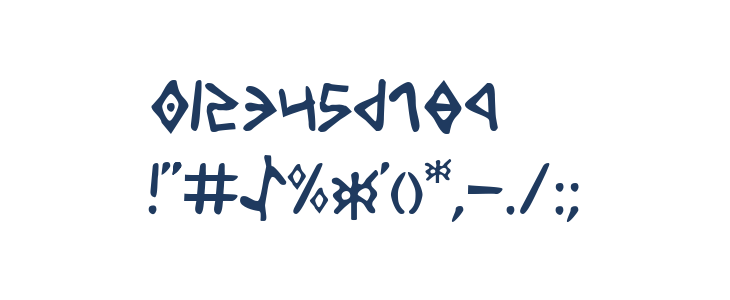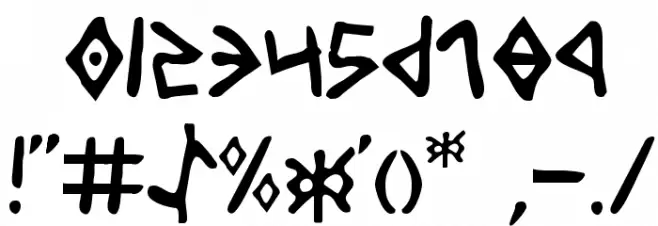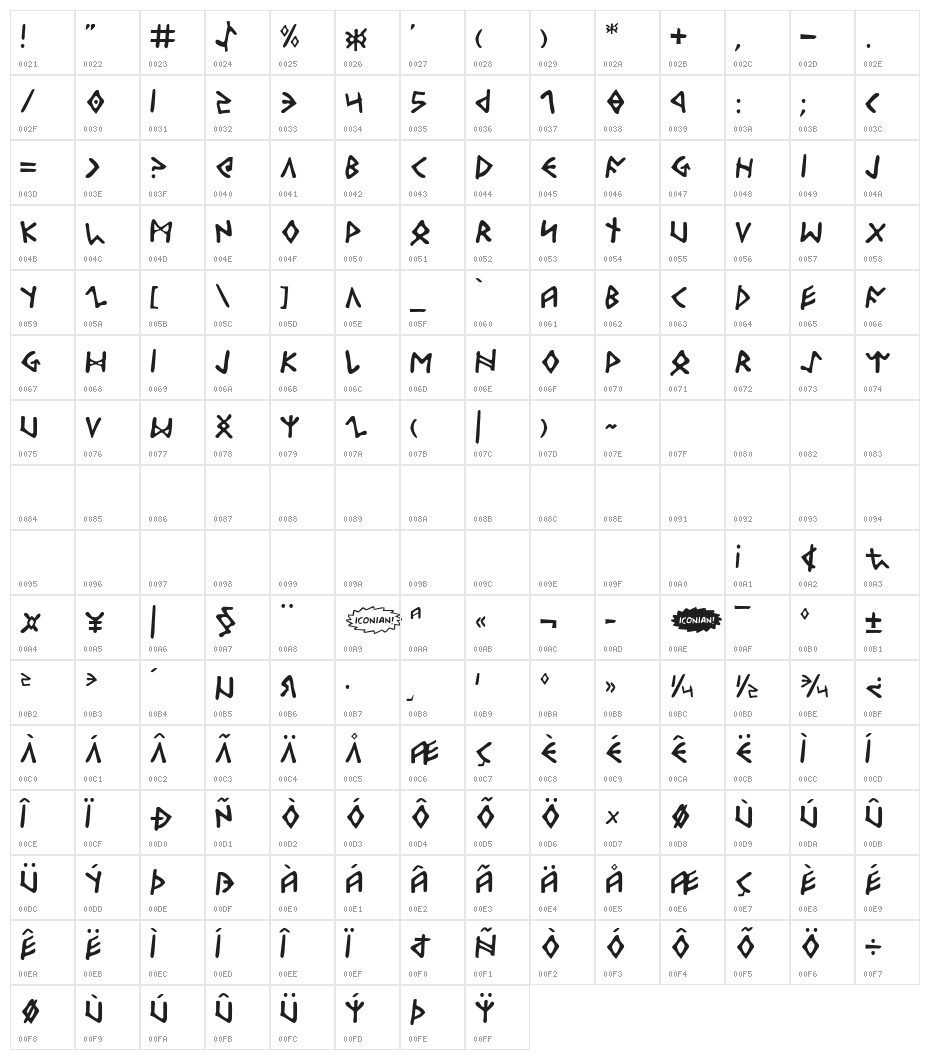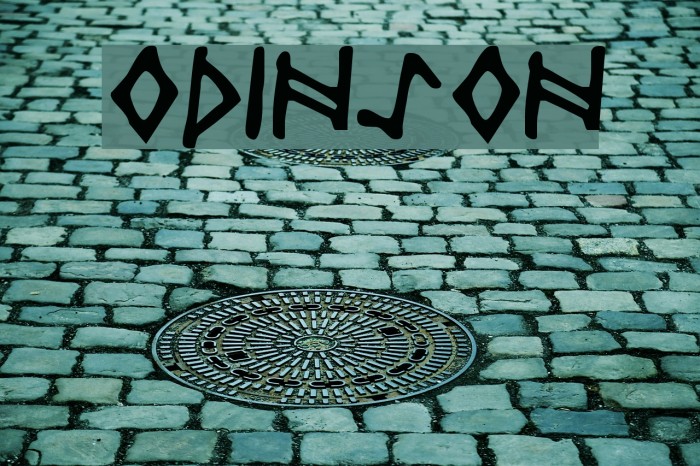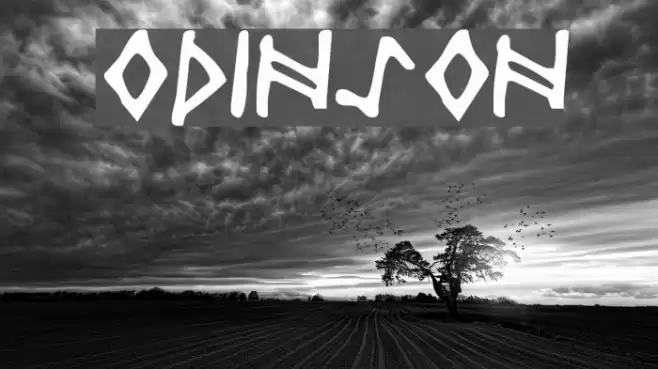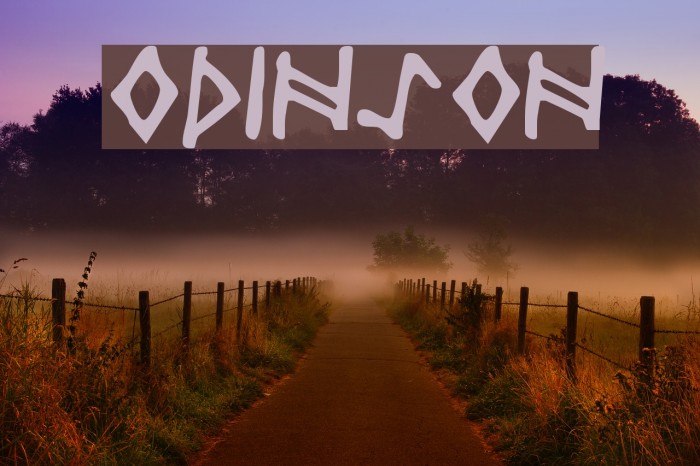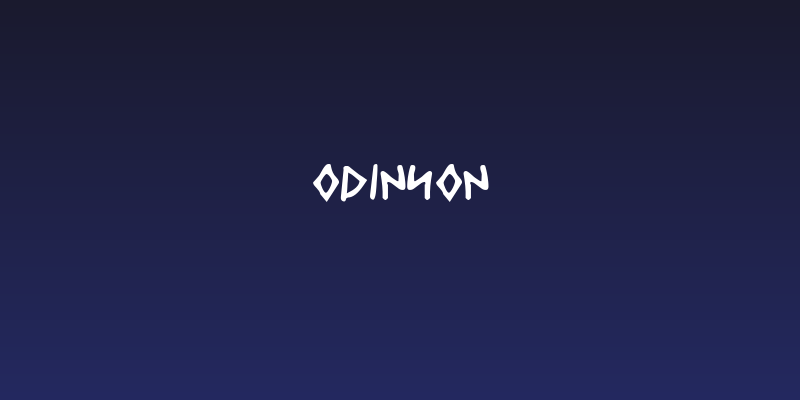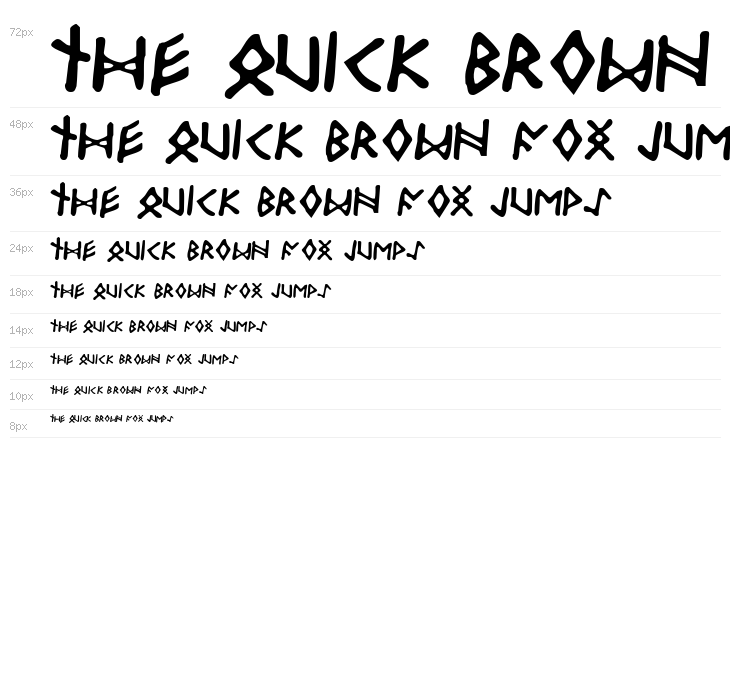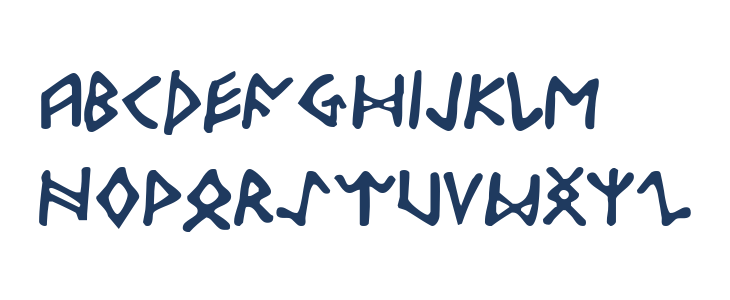
Odinson Font
Odinson Description
This font features a bold and rugged design, reminiscent of ancient runic scripts. The characters are crafted with thick strokes and irregular angles, giving it a raw and primitive appearance. The uppercase and lowercase letters maintain a consistent style, with each character exhibiting unique and distinctive shapes. The numbers and special characters follow the same aesthetic, ensuring a cohesive look across all elements. This font's design evokes a sense of mystery and antiquity, making it ideal for projects that require a touch of the mythical or historical.
| Proposed Projects | Ideal for fantasy-themed projects, historical recreations, game design, or any creative work that requires a mythical or ancient aesthetic. |